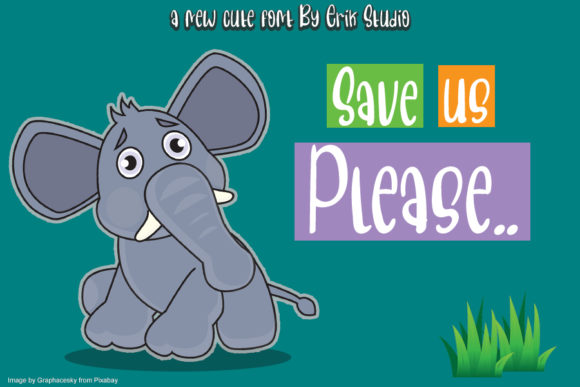
**Embark on a Typographic Journey with Save Us Please Font: The Epitome of Charm and Playfulness**
In the vast realm of digital design, typography reigns supreme, setting the tone and conveying the essence of your creative expressions. Amidst a sea of conventional fonts, Save Us Please Font emerges as an oasis of originality, inviting you to embrace its captivating charm and playful spirit.
Crafted with meticulous attention to detail by the talented team at Erik Studio, Save Us Please Font is a display font that exudes personality and warmth. Its chunky letters, reminiscent of hand-painted signage, possess an undeniable allure that instantly captures the eye.
**Immerse Yourself in a World of Creative Possibilities**
With Save Us Please Font as your creative companion, you'll find endless opportunities to bring your design visions to life. Whether you're crafting enchanting wedding invitations, designing eye-catching posters, or creating social media graphics that pop, this font will elevate your work to new heights.
Its versatility knows no bounds, adapting seamlessly to a myriad of design styles. From whimsical and playful to elegant and sophisticated, Save Us Please Font effortlessly complements your creative vision, adding a touch of whimsy and delight to every project you undertake.
**Unleash Your Inner Designer and Captivate Your Audience**
As you explore the depths of Save Us Please Font's character set, you'll discover a treasure trove of unique glyphs and alternate characters that add an extra layer of charm and personality to your designs. Experiment with ligatures, swashes, and stylistic alternates to create truly bespoke typographic compositions that leave a lasting impression.
**A Font That Speaks to the Heart**
Save Us Please Font is more than just a collection of letters; it's an invitation to express your individuality and make a statement with your designs. Its friendly and approachable nature creates an instant connection with your audience, evoking a sense of warmth and familiarity.
Whether you're designing for a personal project or a high-profile client, Save Us Please Font has the power to transform your words into captivating visual masterpieces. Its youthful exuberance and playful spirit will breathe new life into your designs, leaving your audience utterly captivated.